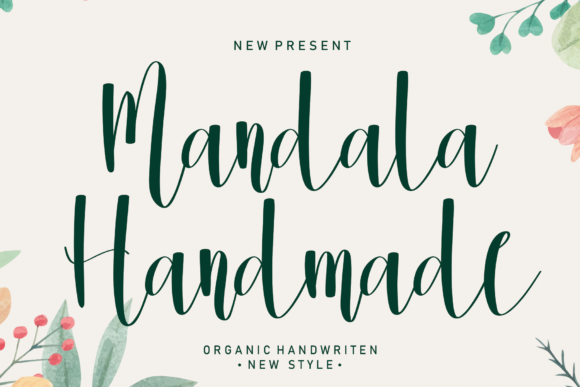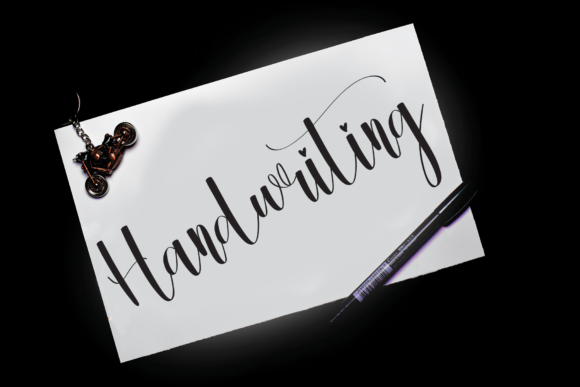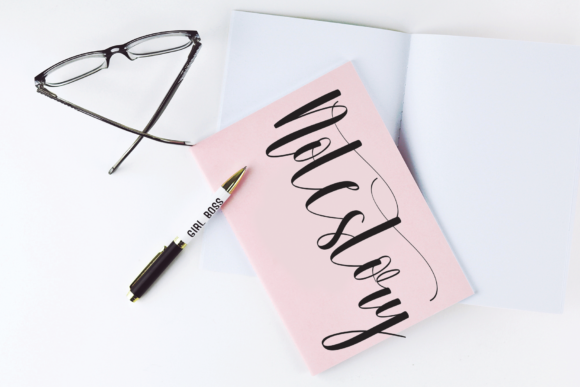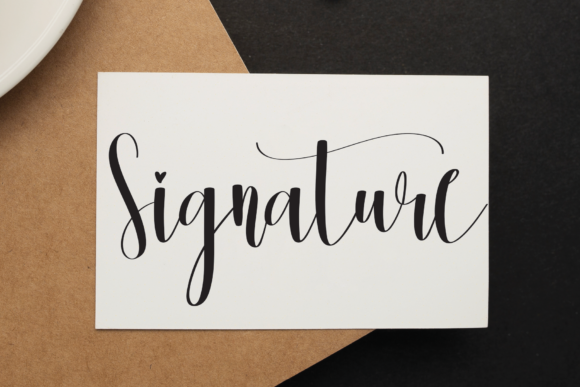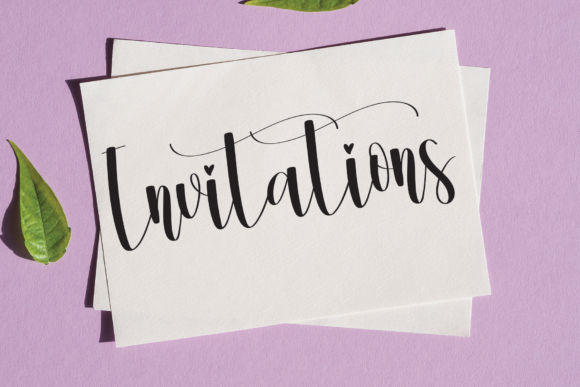
Mandala Handmade Font
About Mandala Handmade Font
Mandala Handmade is an organic handwritten font. You can use this elegant font for wall displays, wedding invitations, social media post logos, advertisements, product packaging, product designs, labels, photography, watermarks, invitations, and stationery.